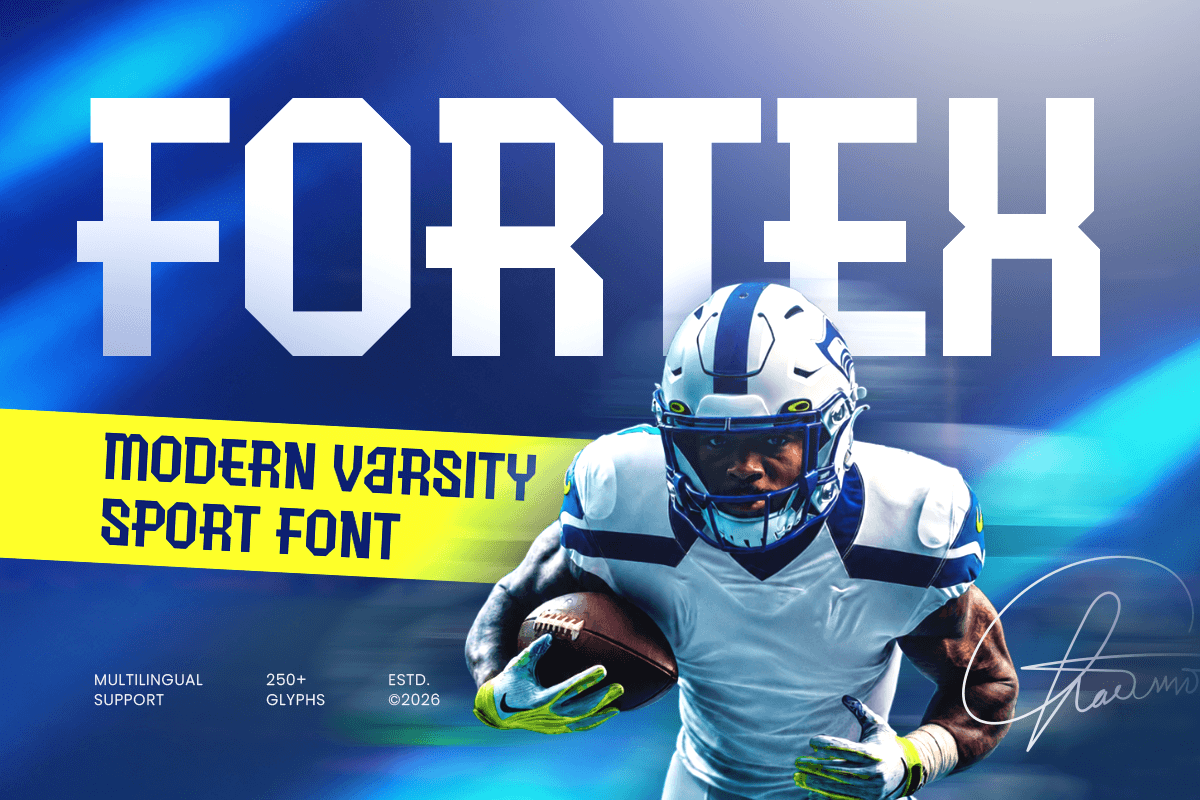
Fortex
-Modern Varsity Sport FontFortex - Modern Varsity Sport Font
FORTEX is a modern varsity sport font designed to bring bold energy, competitive spirit, and athletic character to your creative projects. Inspired by classic varsity typography with a contemporary approach, this typeface is perfect for sports branding, team logos, posters, and energetic visual identities.
Featuring strong letterforms, confident shapes, and a powerful display style, FORTEX creates an impactful presence across sports merchandise, event graphics, gaming visuals, and athletic campaigns. Its modern varsity aesthetic combines traditional sports heritage with a fresh and dynamic look.
Whether you're designing for sports teams, fitness brands, esports identities, or championship events, FORTEX delivers strength, speed, and personality to every composition across both print and digital platforms.
FORTEX – Modern Varsity Sport Font Features
Bold varsity-inspired design with modern athletic style
Perfect for sports logos, posters, and team branding
Strong display letterforms with energetic visual impact
Ideal for sports, gaming, fitness, and competitive designs
OpenType features for enhanced typography flexibility